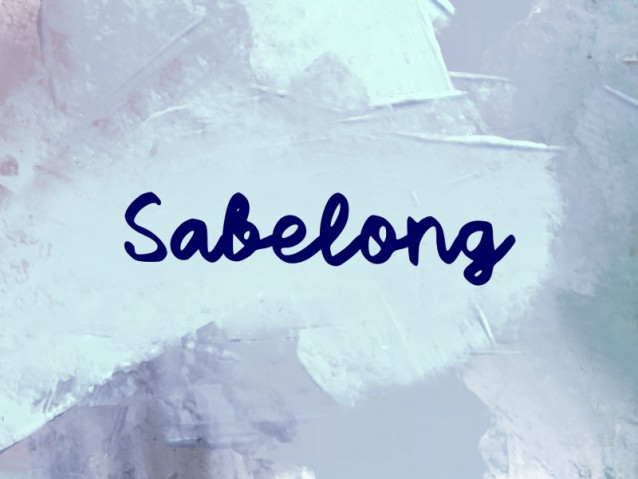
Sabelong Font
Sabelong Font is a simple and friendly handwritten font. Its natural and unique style makes it incredibly fitting to a large pool of designs. The only limit is your imagination!